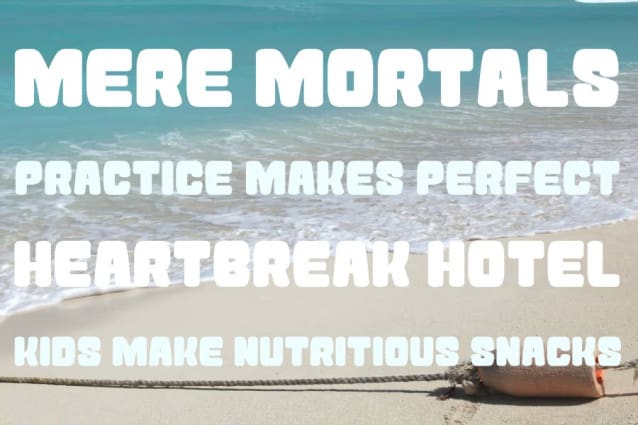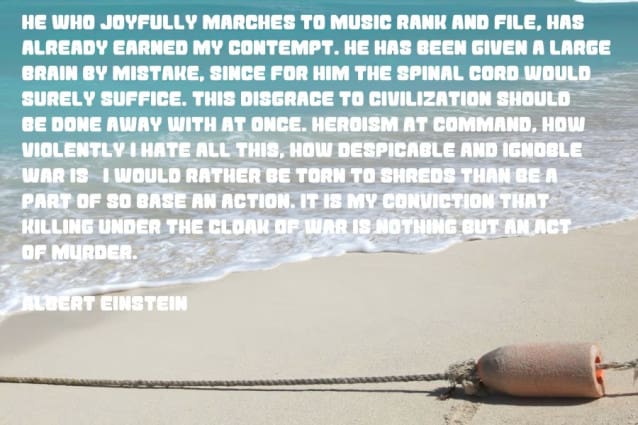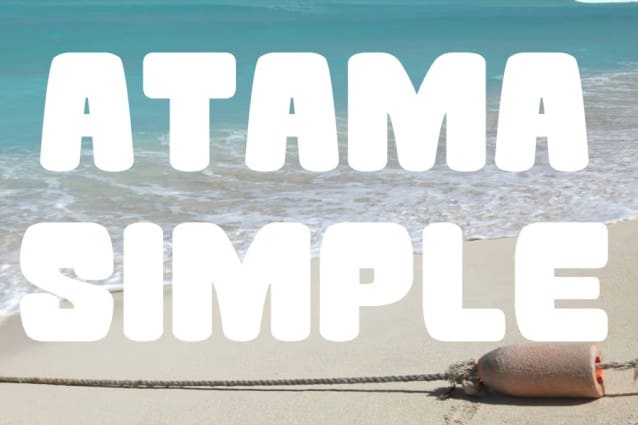
Atama Simple Font
Atama Simple Font is a playful display typeface with chunky, rounded letterforms and a relaxed personality. Its uniform stroke widths and soft curves evoke bubble lettering and writing drawn in the sand, giving the design a friendly and approachable tone.
The characters feature open counters, wide shapes and softened edges that ensure excellent legibility even at large sizes. A consistent rhythm flows through the typeface thanks to its simple geometry, while subtle details like gently slanted terminals and exaggerated bowls add a touch of charm.
Use Atama Simple when you want to convey fun and warmth. It’s a great choice for posters, packaging, logos, children’s books, social media graphics and signage. The bold yet friendly forms make it perfect for branding playful products, summer events or any project that needs a strong but approachable look.